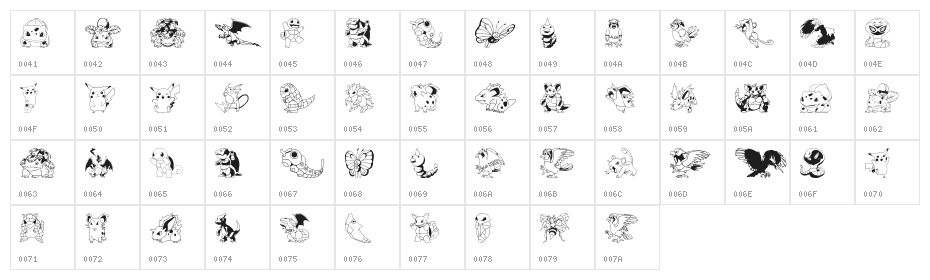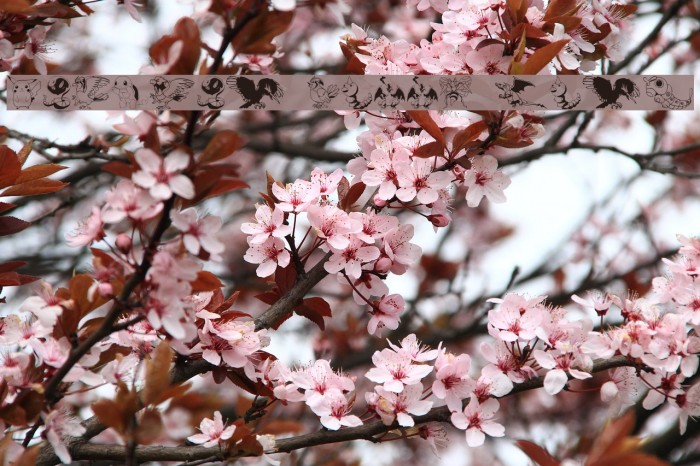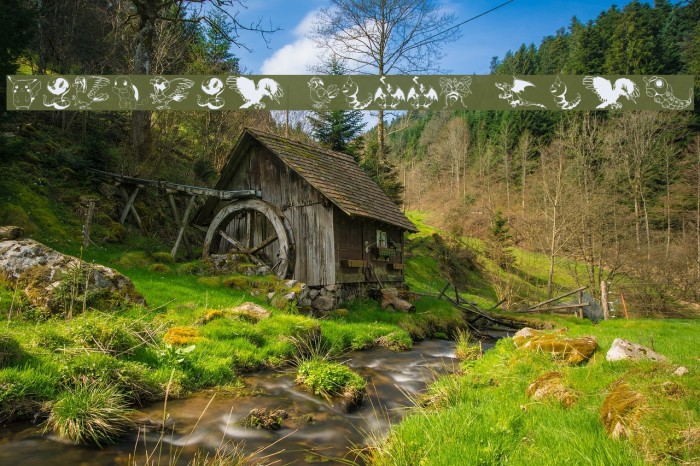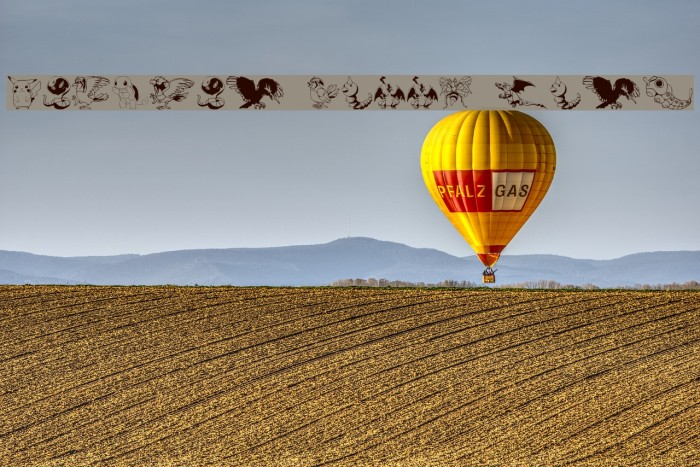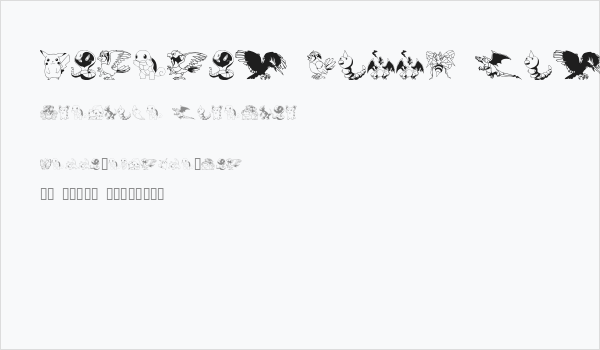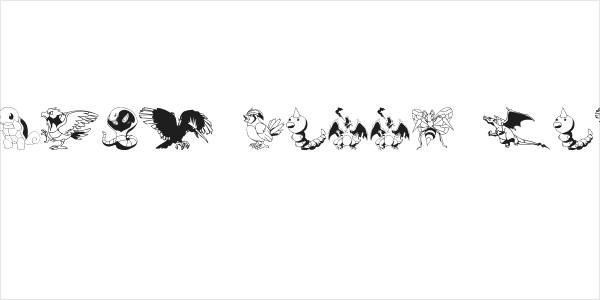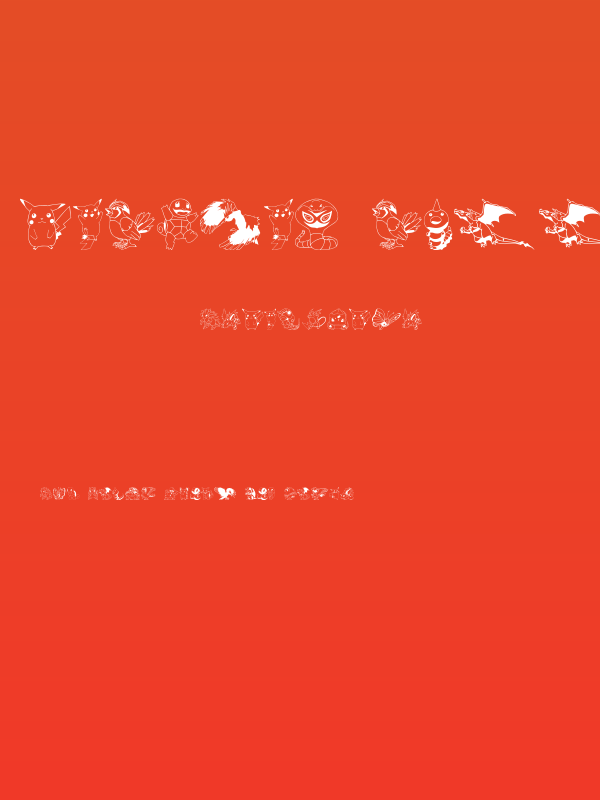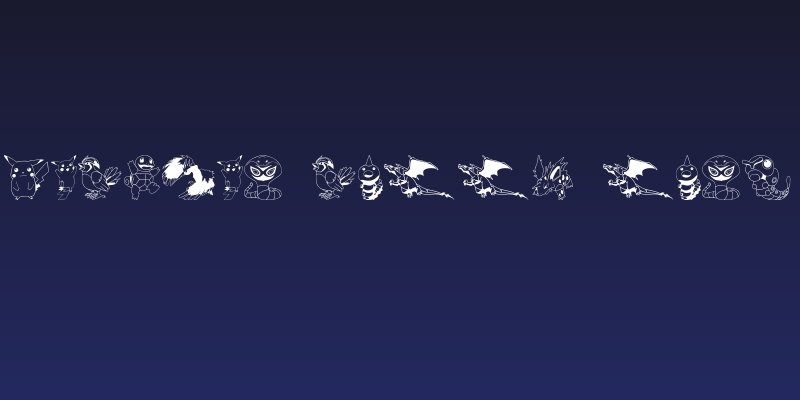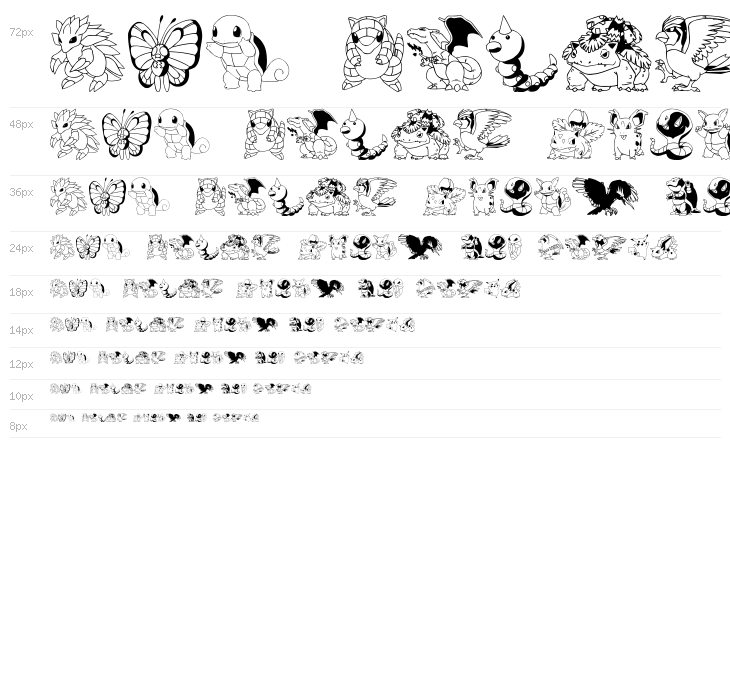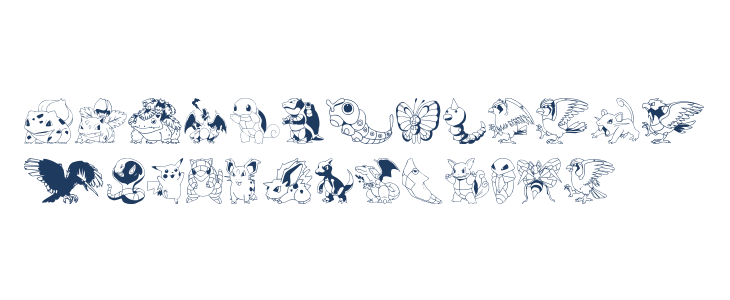
Pokemon Kiddy Ding Font
Pokemon Kiddy Ding Description
A decorative display font featuring playful, cartoon-style illustrations of various creatures in place of standard alphanumeric characters, with each glyph representing a unique character or monster. The font is highly illustrative and detailed, focusing on character art rather than traditional letterforms.
| Overall Style | Decorative, Playful, Whimsical |
| Use Case | Logos, Posters, Themed Headlines, Children's Materials |
| Proposed Projects | Children's party invitations, themed posters, fan art, novelty merchandise, educational materials for kids. |